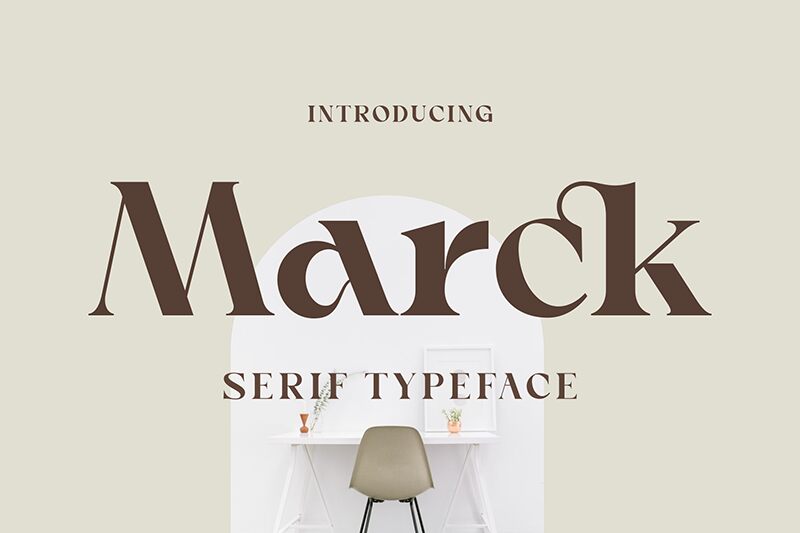
Marck is a serif typeface created by Penatic Studio. It’s a versatile font that can be used with any design and has a professional and formal feel with a modern touch. You can try this free bold version for your logos and branding projects. We will be more than excited to see the creative results that you’ll come up with!
Marck
Penatic Studio
Saiful Fahri